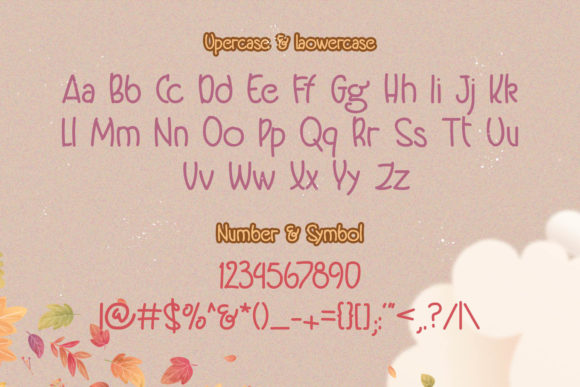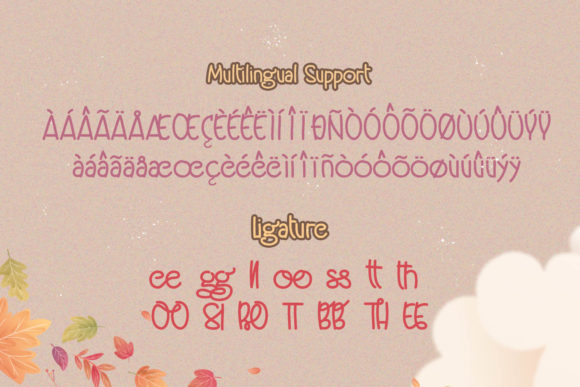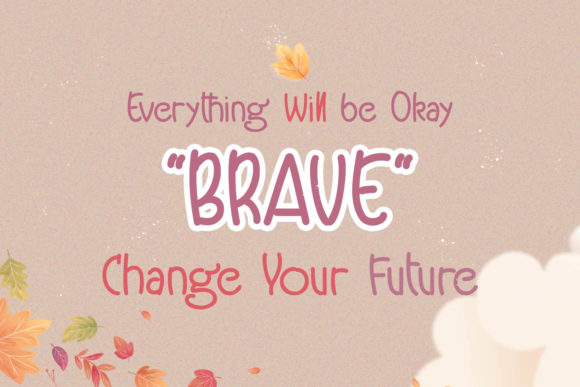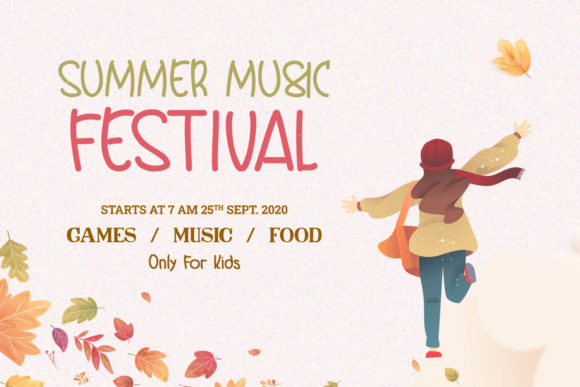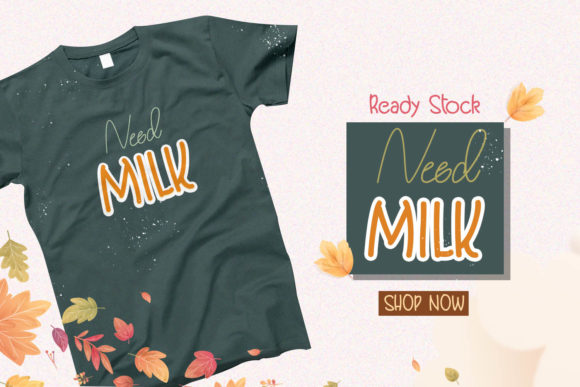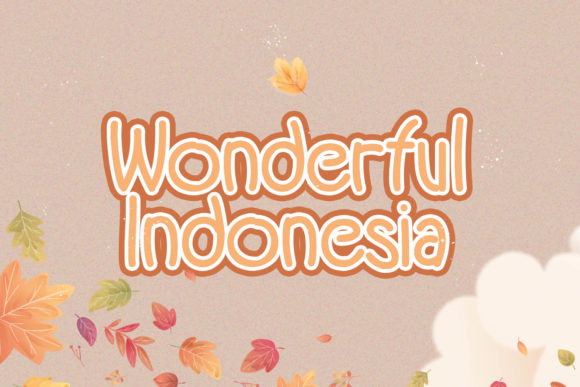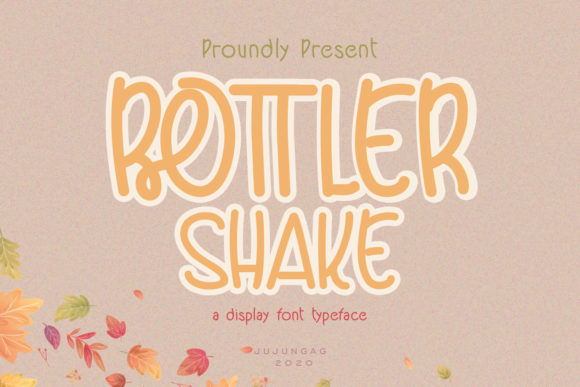
The Joy of Bottler Shake Font: A Designer’s New Best Friend
I’ll never forget the time I was working on a project for a children’s birthday party invitation. I had the design concept all sorted out, but I was stuck on finding the perfect font. The invitation needed to be fun, playful, and eye-catching. That’s when I stumbled upon Bottler Shake Font. It was love at first sight! 💕
This cute and quirky display font instantly added a joyful touch to my design. The wobbly letters seemed to dance on the page, making the invitation impossible to ignore. I knew right then that Bottler Shake Font was going to be my new go-to for any project that needed a dash of whimsy.
So, what makes Bottler Shake Font so special? Here are a few things I adore about it:
- ✨ Unique and playful design: The font’s wobbly letters are unlike anything you’ve seen before. It’s perfect for adding a touch of personality to your designs.
- ✅ Highly versatile: Bottler Shake Font can be used for a wide range of projects, from children’s party invitations to social media graphics and more.
- 💫 Easy to read: Despite its quirky design, the font is surprisingly easy to read, even in larger blocks of text.
Of course, no font is perfect, and Bottler Shake has a few minor quirks:
- 🤔 Limited use in formal designs: Bottler Shake Font is best suited for informal, playful projects. It might not be the best choice for more formal designs, like business cards or corporate reports.
- ⚠️ May not work well in small sizes: The font’s wobbly design can become a bit distorted when used in very small sizes. It’s best used in larger sizes where its unique charm can shine.
A Practical Guide: Using Bottler Shake Font in Your Designs
The Story Behind Bottler Shake Font
Bottler Shake Font was designed by a creative team that wanted to bring a dash of joy to the world of typography. Inspired by the whimsical designs of childhood, they crafted a font that’s both playful and elegant. Whether you’re a designer, crafter, or creative hobbyist, Bottler Shake Font is sure to bring a smile to your face.
| Font Name | Bottler Shake Font |
| Author | Nerdstudio |
| What type of designs is Bottler Shake Font best suited for? | Bottler Shake Font is perfect for informal, playful designs like children’s party invitations, social media graphics, and more. |
| Is Bottler Shake Font easy to read? | Yes, despite its quirky design, Bottler Shake Font is surprisingly easy to read, even in larger blocks of text. |